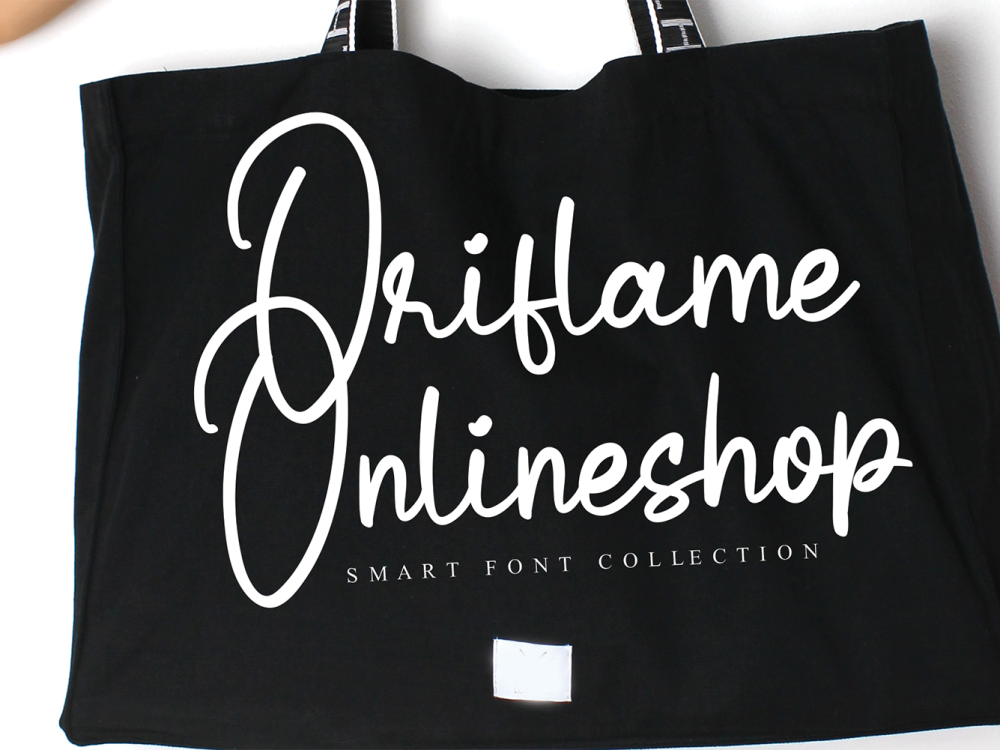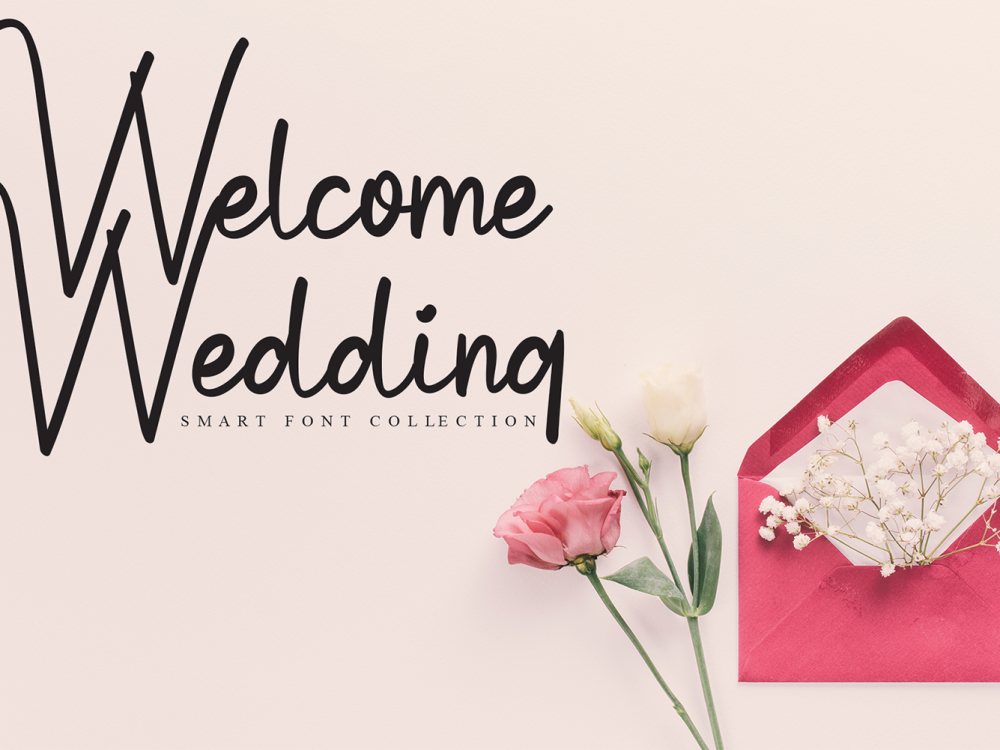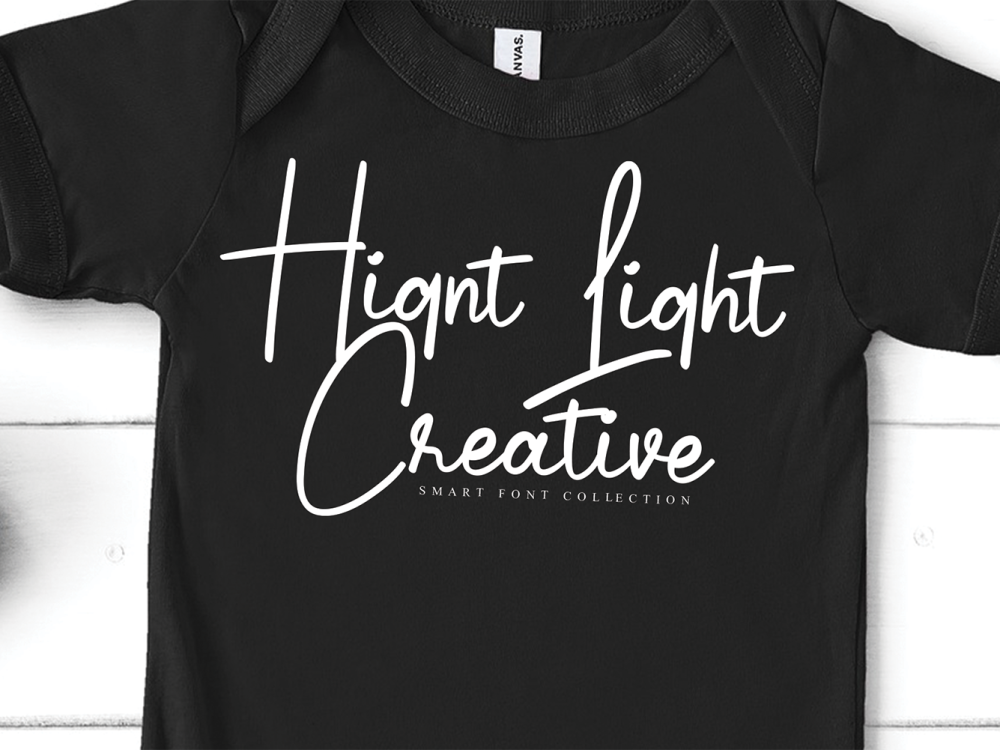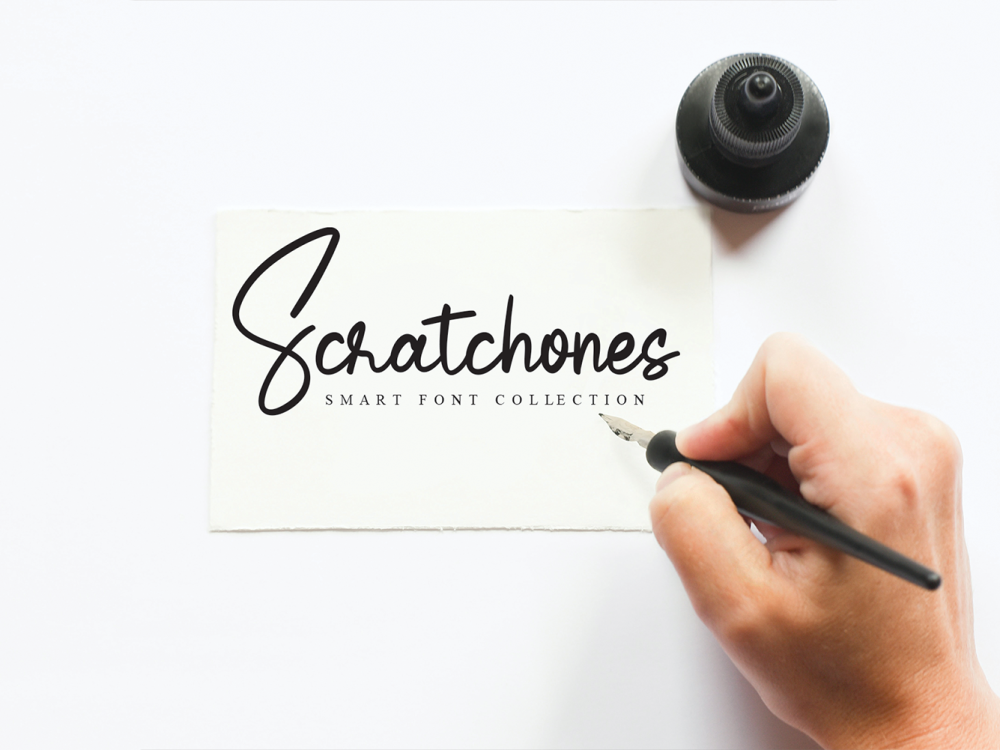
Introducing Butter Chocolate Free Font, an exquisite and luminous handwritten font that emanates a distinctive aura, leaving an impactful impression. This font serves as a touch of opulence, infusing a luxurious spark into your desired design projects, elevating them to new heights of elegance and allure. If you like it don’t forget to check out the full version.